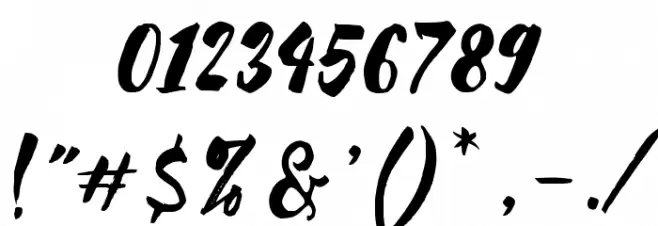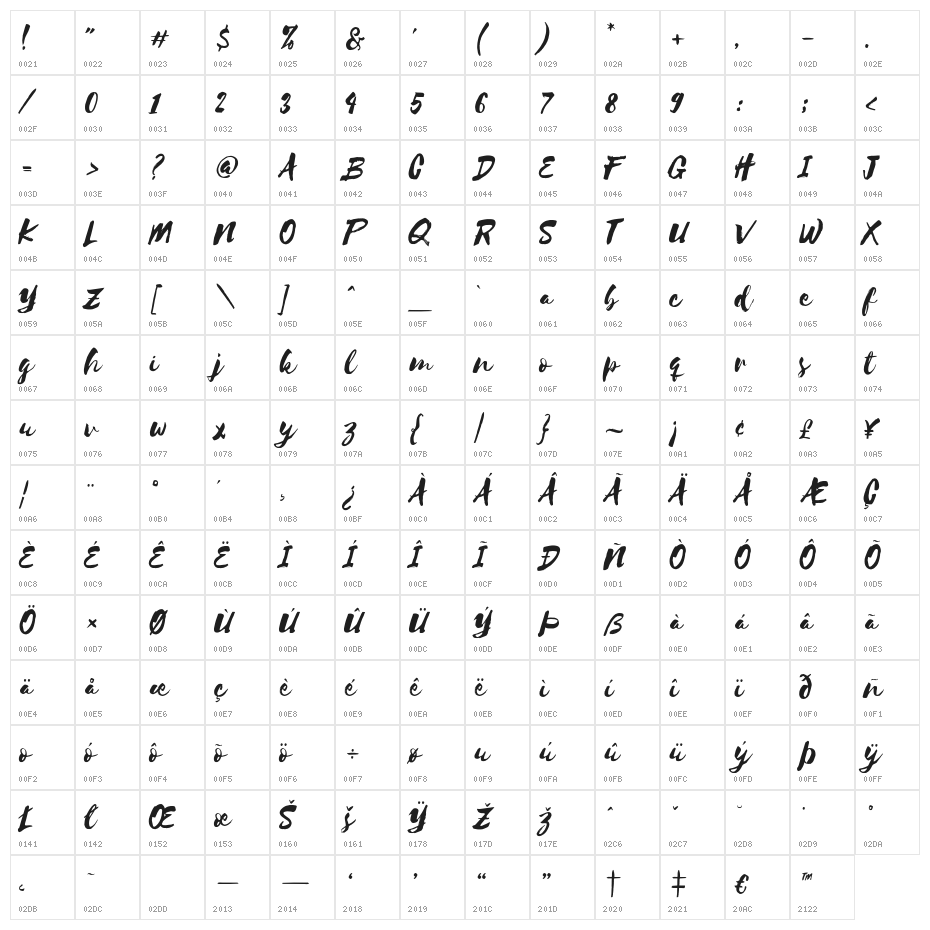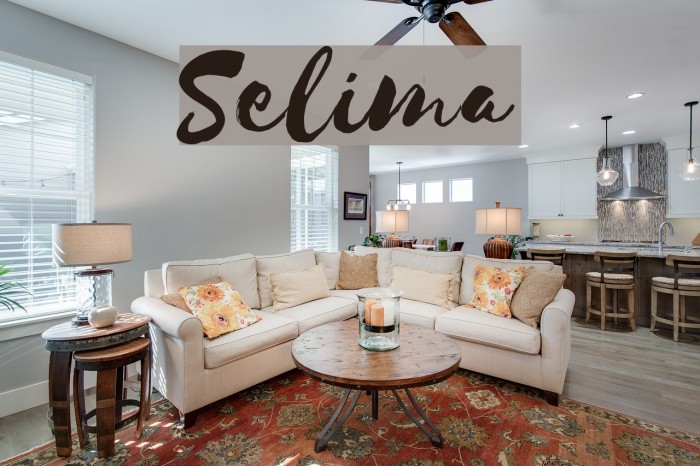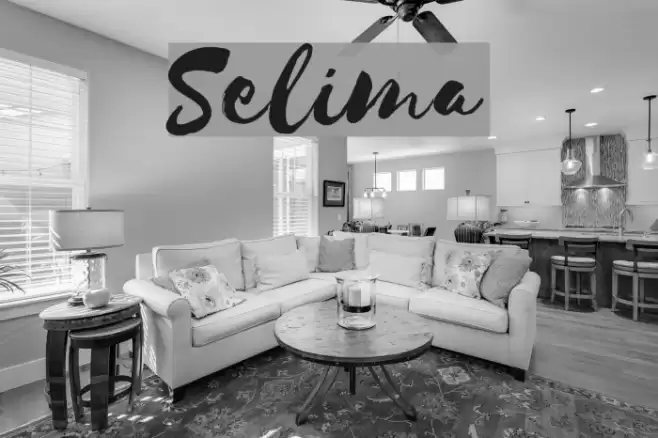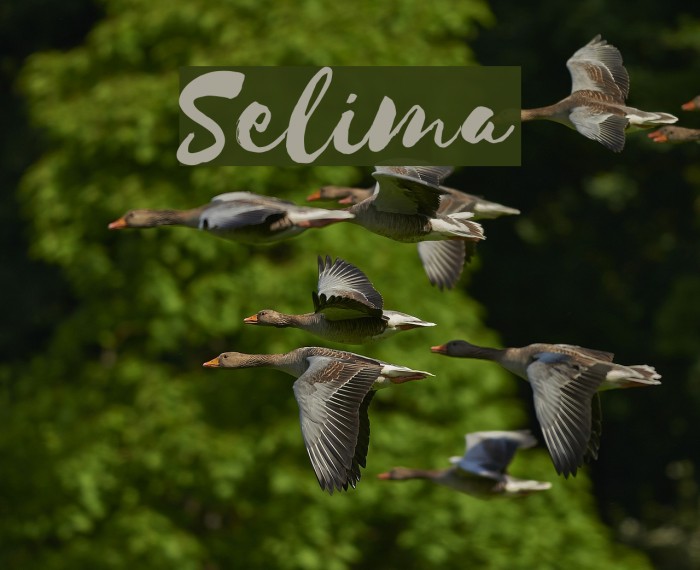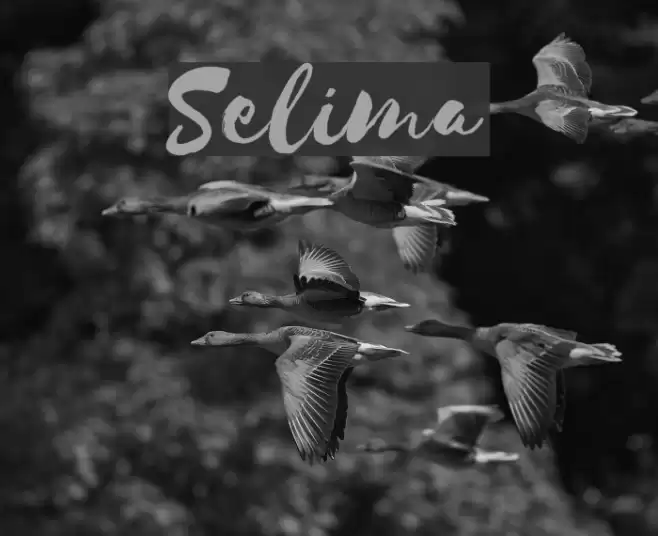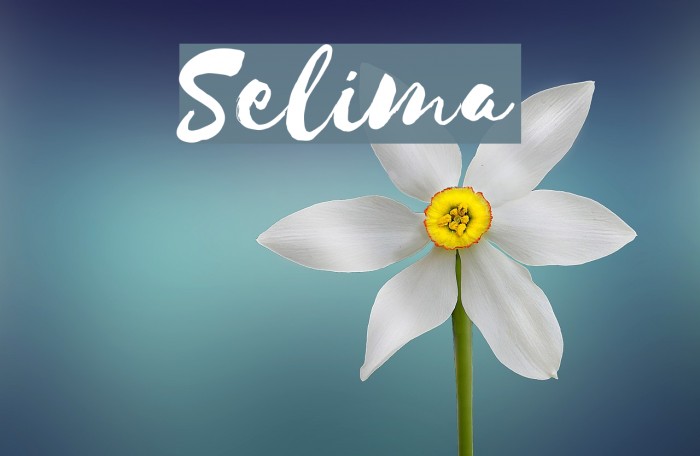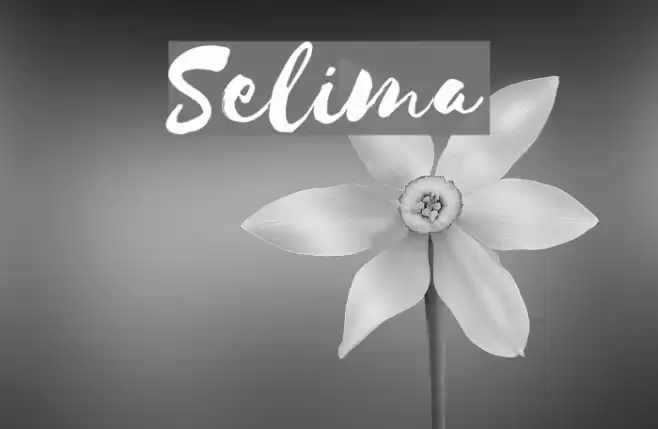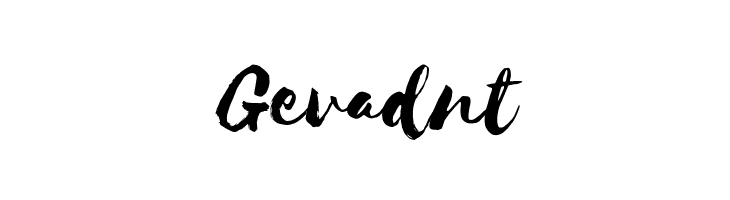
Selima Font
Selima Description
This font features a bold, expressive style with a handwritten appearance, characterized by its dynamic brush strokes and fluid motion. The uppercase letters are bold and impactful, while the lowercase letters maintain a consistent flow, adding a touch of elegance. The numerals are clear and distinct, matching the overall energetic feel of the font. Special characters are included, maintaining the same brush-like texture. This font is perfect for projects that require a personal and artistic touch, such as invitations, posters, and branding materials.